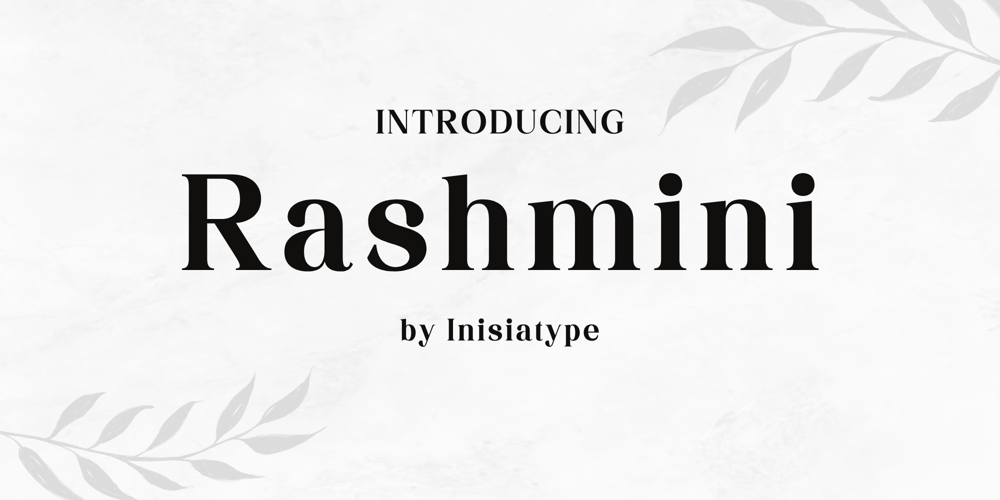
Rashmini
Rashmini font
Rashmini Font Family was designed by Ahmad Husein and published by Ahmad Husein. Rashmini contains 1 styles and family package options. Rashmini is a serif font that offers a variety of features to enhance your design appearance. This font includes uppercase and lowercase letters, numbers, and punctuation marks. Moreover, Rashmini also supports multilingual capabilities, allowing you to easily apply the font in various languages.In addition to these basic features, Rashmini also comes with ligatures that enable the combination of characters into one, creating a smoother and more aesthetic look. Furthermore, the font provides alternate characters that can be used to add variation to your design.Apart from the mentioned features, Rashmini is also PUA (Private Use Area) encoded, allowing the use of special characters outside the standard Unicode. This enables you to have more flexibility in customizing and creating designs with the Rashmini font.